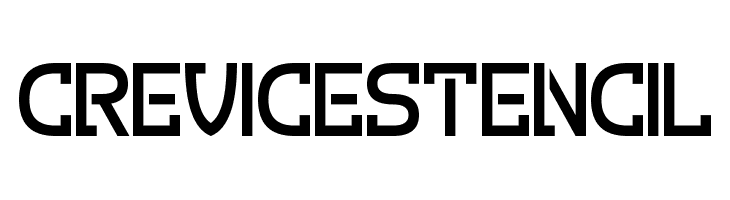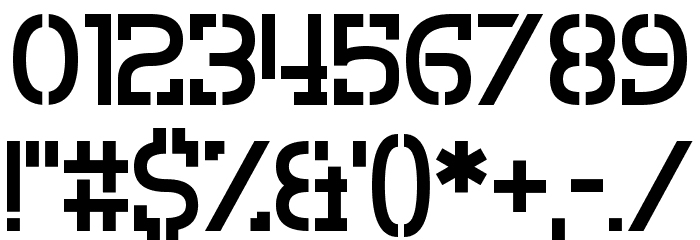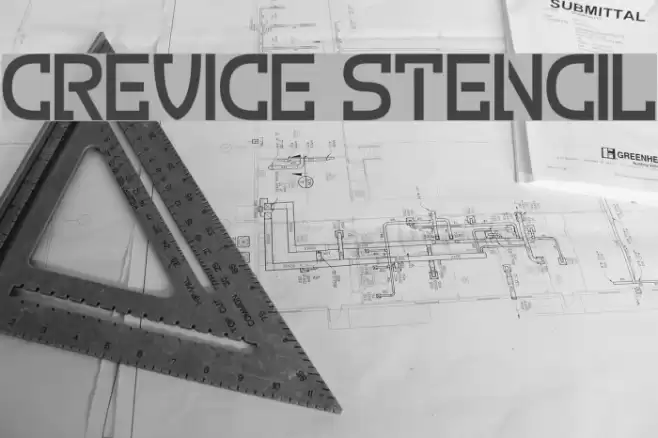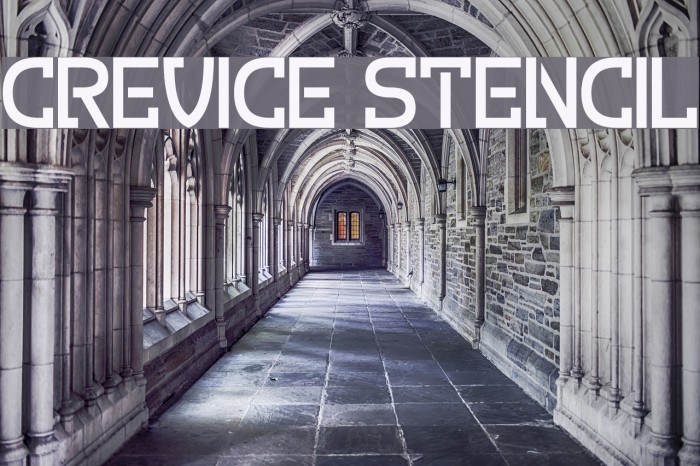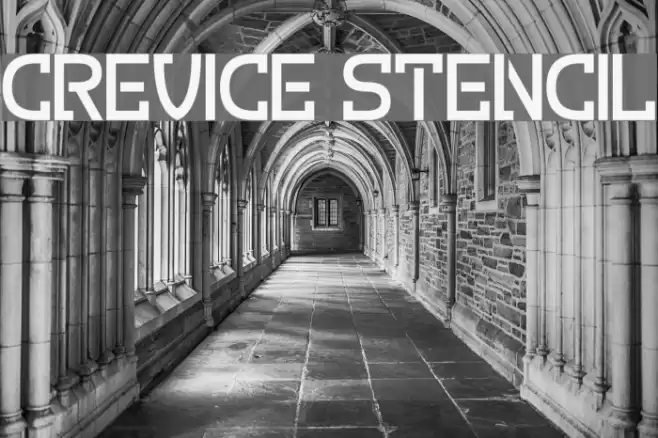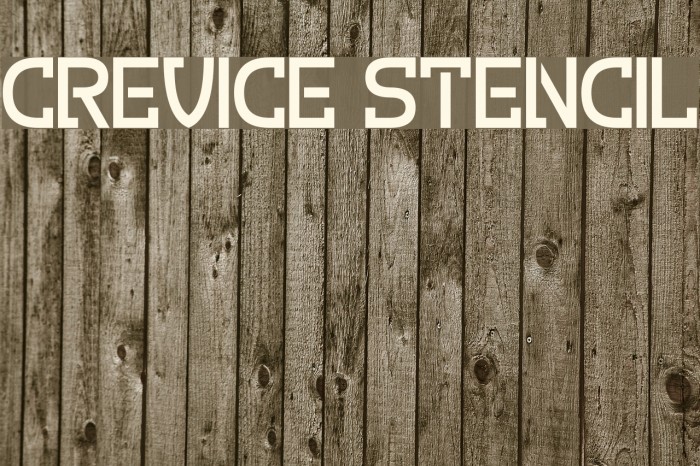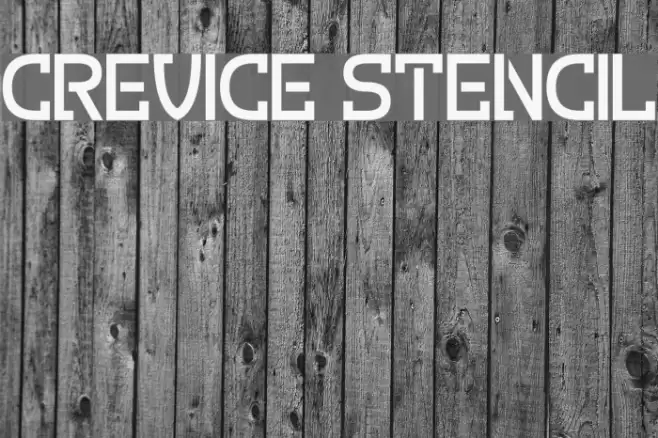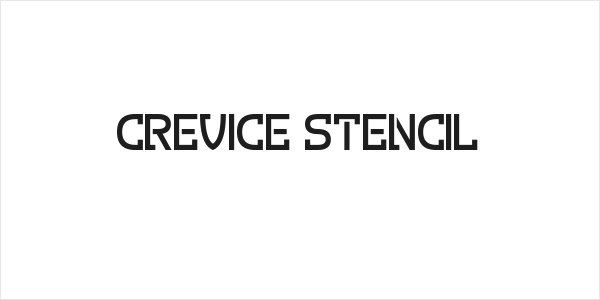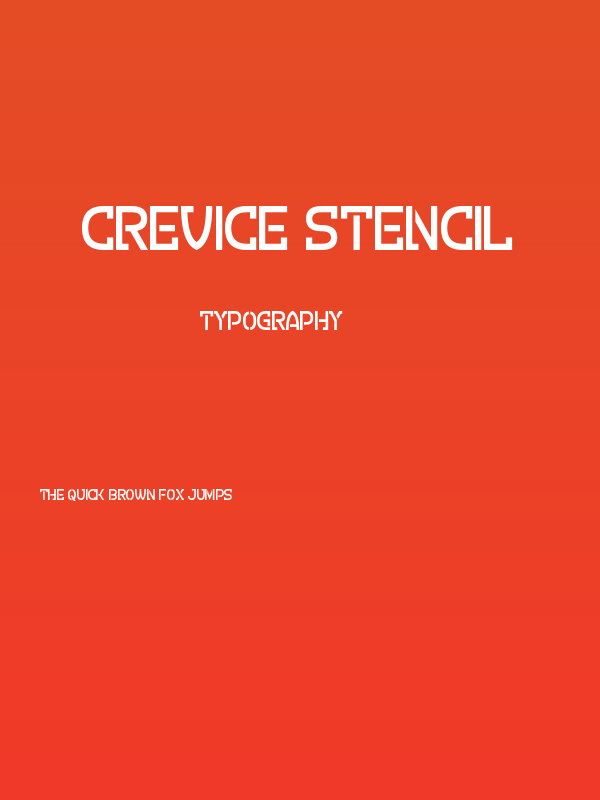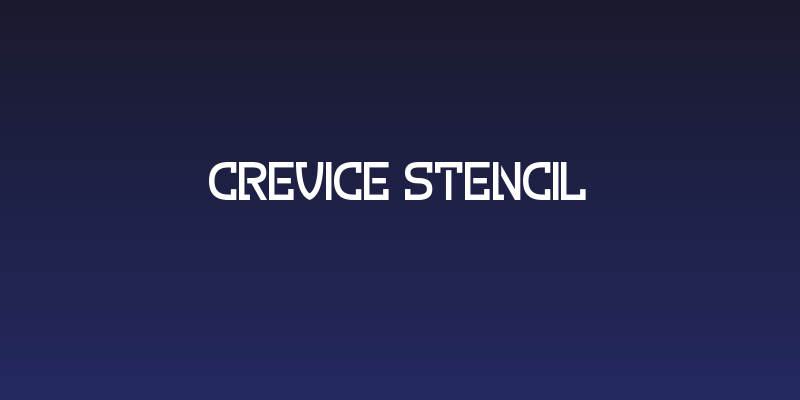
Crevice Stencil Font
Crevice Stencil Description
This font features a bold, geometric design with a distinct stencil-like appearance. The characters are constructed with clean, angular lines and prominent cutouts, giving it a modern and industrial feel. The uppercase and lowercase letters maintain a consistent style, with the cutouts providing a unique visual rhythm. The numerals and special characters follow the same design principles, ensuring uniformity across all glyphs. This font is ideal for projects that require a strong, impactful look while maintaining readability.
| Use Case | Headlines, Logos, Signage |
| Proposed Projects | Ideal for branding, signage, posters, and any design requiring a modern, industrial aesthetic. |